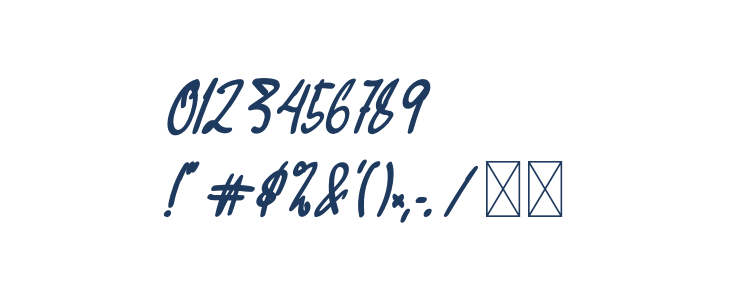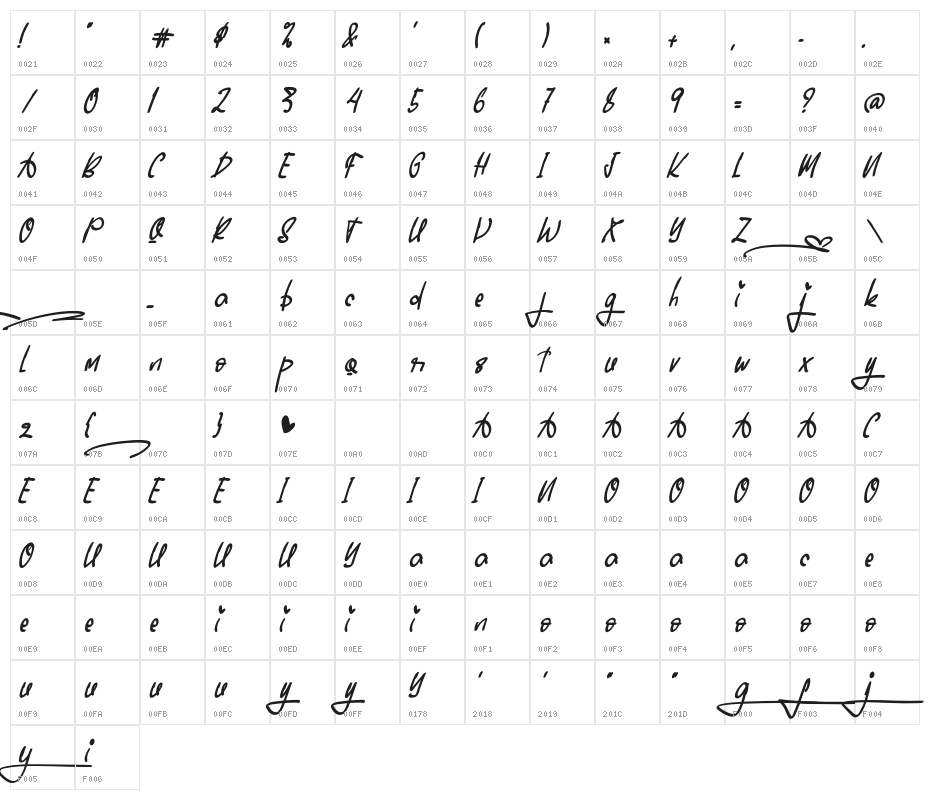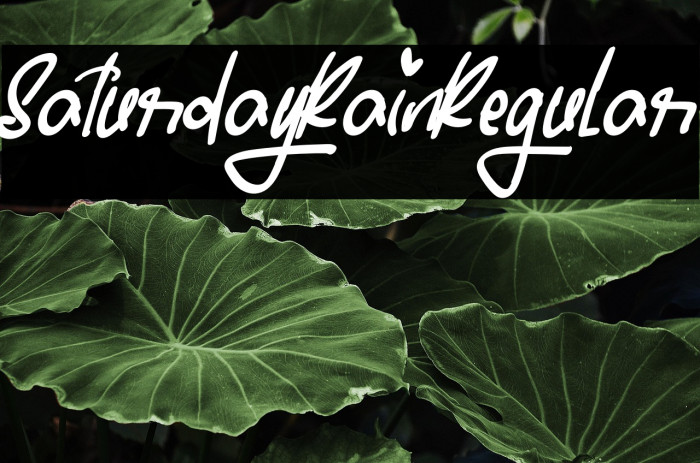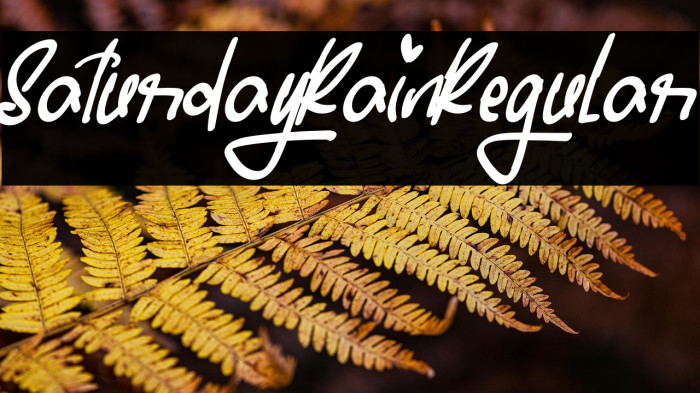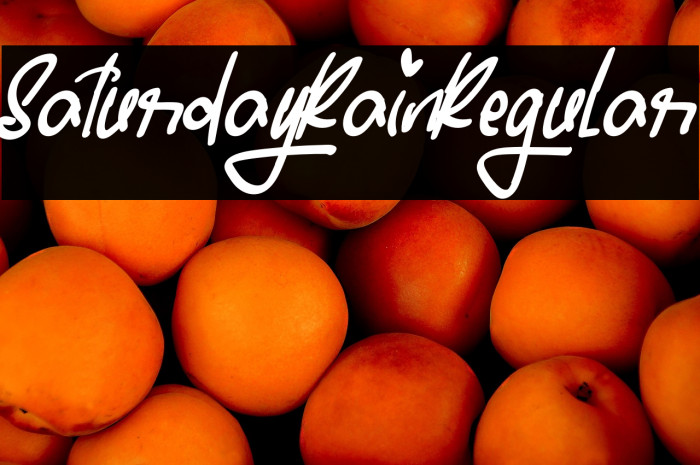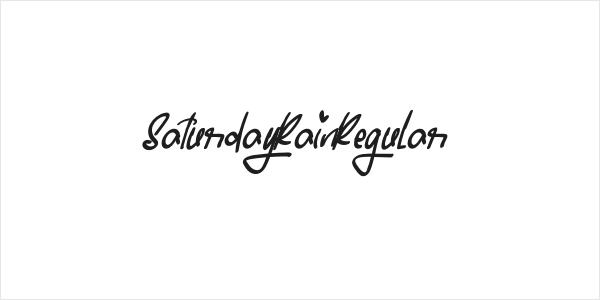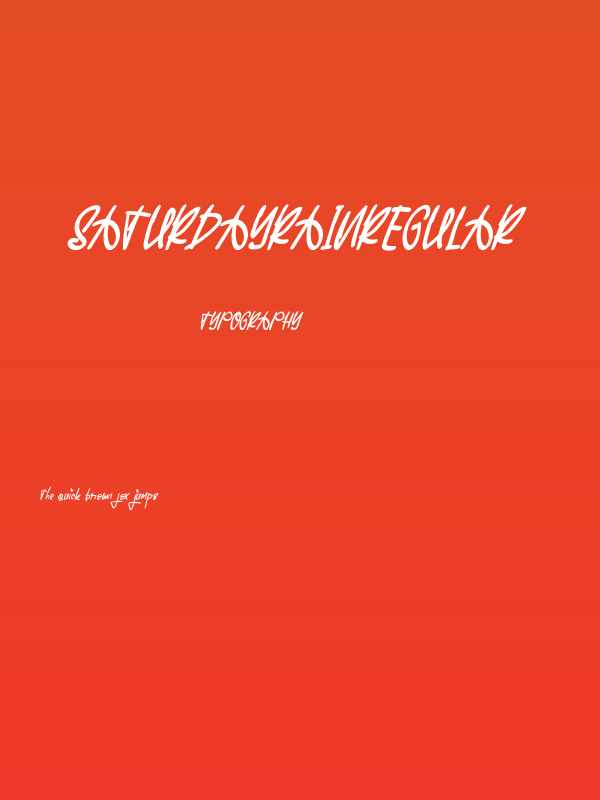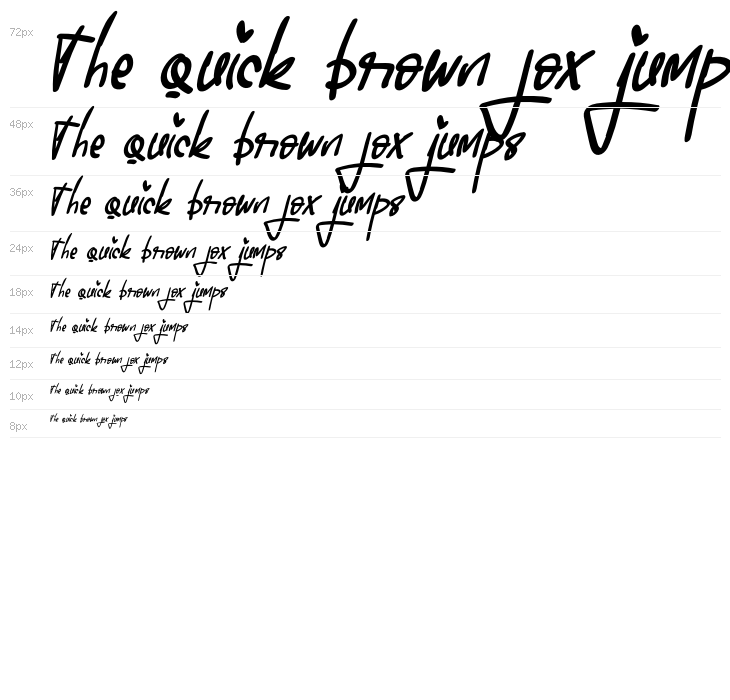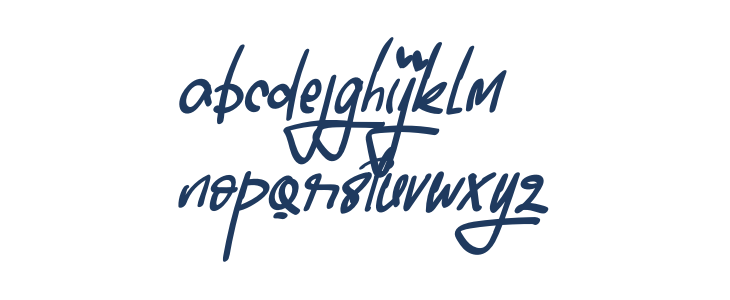
SaturdayRainRegular Font
SaturdayRainRegular Description
This font exhibits a dynamic and energetic handwritten style, characterized by its fluid and expressive strokes. The uppercase letters are bold and slightly slanted, giving a sense of movement and spontaneity. The lowercase letters maintain a consistent flow, with some characters featuring unique loops and curves that add personality. The numerals are distinct and maintain the same lively style, ensuring readability while retaining the font's overall aesthetic. Special characters are creatively integrated, matching the playful and informal tone of the font. This typeface is perfect for projects that require a personal touch or a casual, friendly vibe.
| Use Case | Logos, Headlines, Posters |
| Proposed Projects | Ideal for greeting cards, invitations, personal branding, social media graphics, and creative posters. |